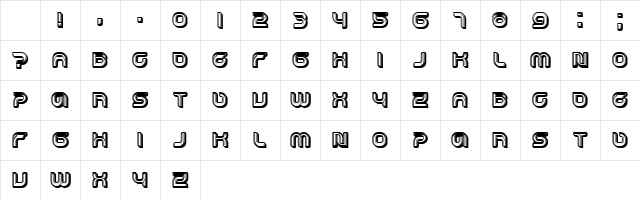
Complete Dropped 3D Regular glyph index. Displaying only characters natively supported by Dropped 3D Regular font.
Dropped 3D is a composed and adaptable typeface that performs quietly and consistently across a wide range of design contexts.